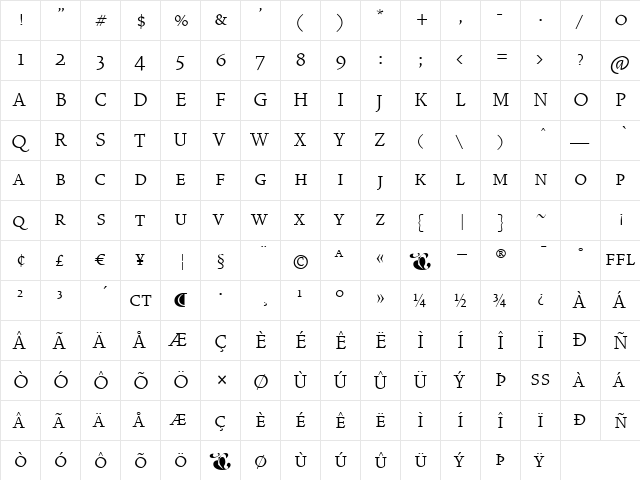
VendettaLightSmallCaps Regular
| Foundry | Emigre |
| Designer | John Downer |
Design Context for VendettaLightSmallCaps Typeface
VendettaLightSmallCaps is a composed and adaptable typeface that performs quietly and consistently across a wide range of design contexts. The delicate stroke weight brings airiness and refinement to layouts.